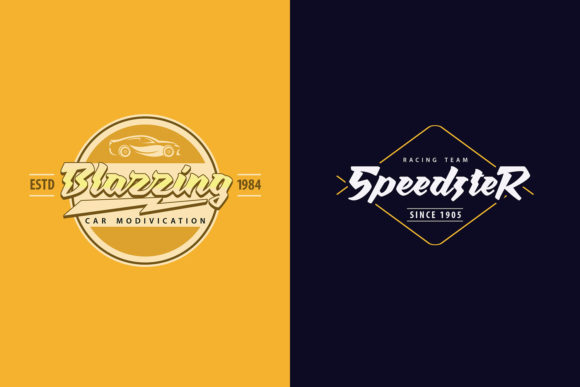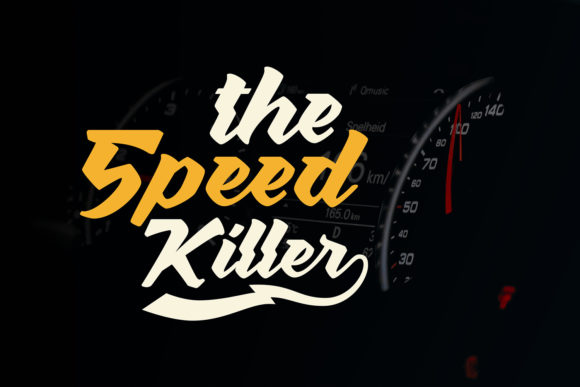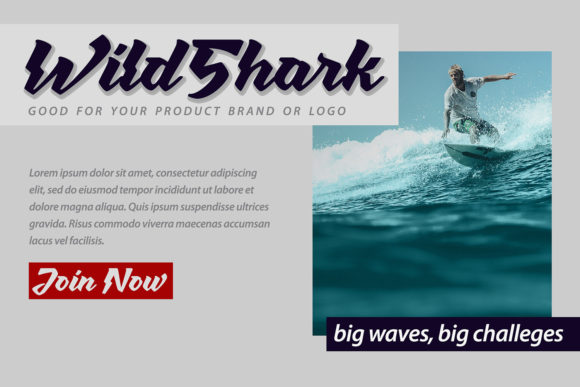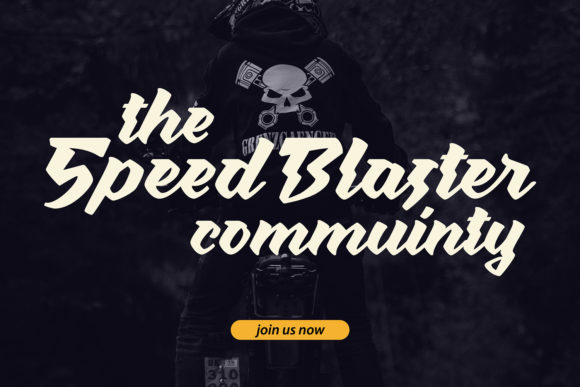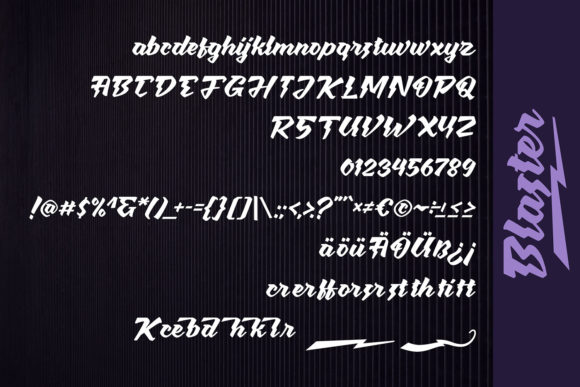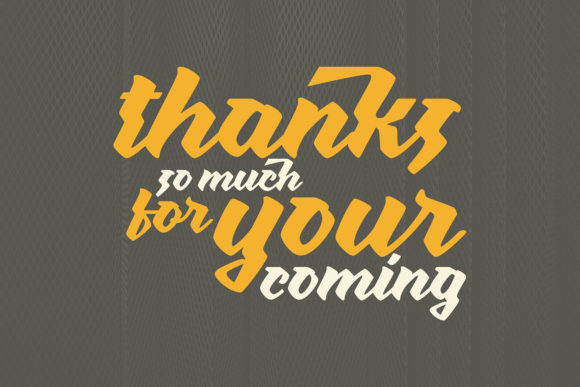
Introducing Blaster Font: The Ultimate Sporty and Masculine Handcrafted Script Font
Are you tired of using the same old fonts for your designs? Do you want to add a touch of sportiness and masculinity to your creations? Look no further than Blaster Font, a handcrafted script font with a calligraphy style that’s perfect for a variety of design projects. In this article, we’ll take a closer look at Blaster Font, its features, and how you can use it to elevate your designs.
What is Blaster Font?
Blaster Font is a unique and stylish handcrafted script font that’s inspired by the world of sports and calligraphy. Its sporty and masculine design makes it perfect for creating eye-catching designs that appeal to a wide range of audiences. Whether you’re designing an invitation, a greeting card, or a branding material, Blaster Font is sure to make your project stand out.
Key Features of Blaster Font
So, what makes Blaster Font so special? Here are some of its key features:
- Sporty and Masculine Design: Blaster Font has a bold and sporty design that’s perfect for creating designs that appeal to a male audience.
- Handcrafted Script Style: The font has a handcrafted script style that’s reminiscent of calligraphy, giving it a unique and personal touch.
- Calligraphy Inspiration: Blaster Font is inspired by the world of calligraphy, making it perfect for creating elegant and sophisticated designs.
- Versatile: The font is versatile and can be used for a variety of design projects, including invitations, greeting cards, branding materials, business cards, quotes, posters, and more.
Use Cases for Blaster Font
Blaster Font is a versatile font that can be used for a wide range of design projects. Here are some use cases to get you started:
- Invitations: Use Blaster Font to create sporty and stylish invitations for events, such as weddings, birthday parties, and graduations.
- Greeting Cards: The font is perfect for creating greeting cards for special occasions, such as holidays, birthdays, and anniversaries.
- Branding Materials: Use Blaster Font to create bold and eye-catching branding materials, such as logos, brochures, and flyers.
- Business Cards: The font is perfect for creating sporty and stylish business cards that make a lasting impression.
- Quotes and Posters: Use Blaster Font to create inspiring quotes and posters that showcase your favorite motivational sayings.
Why Designers and Crafters Love Blaster Font
Blaster Font has quickly become a favorite among designers and crafters, and for good reason. Here are some reasons why:
- Unique Design: The font has a unique and stylish design that’s sure to make your designs stand out.
- High-Quality: The font is high-quality and comes with a range of characters, including uppercase and lowercase letters, numbers, and punctuation marks.